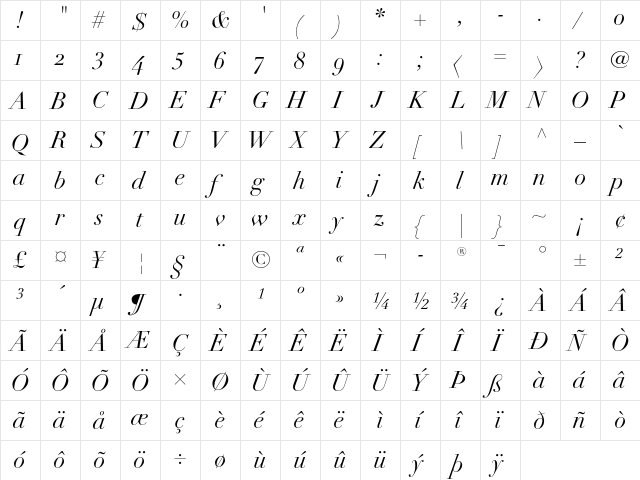
Dioxipe Italic
Design Context for Dioxipe Typeface
Dioxipe offers clean, dependable letterforms without strong stylistic allegiance, making it a practical choice for designers who need flexibility. The dynamic lean of this cut emphasises speed and emphasis in any layout.
Pro Tip: Try Dioxipe for annotation and caption copy alongside an upright companion — the contrast in angle creates a dynamic but ordered typographic system.